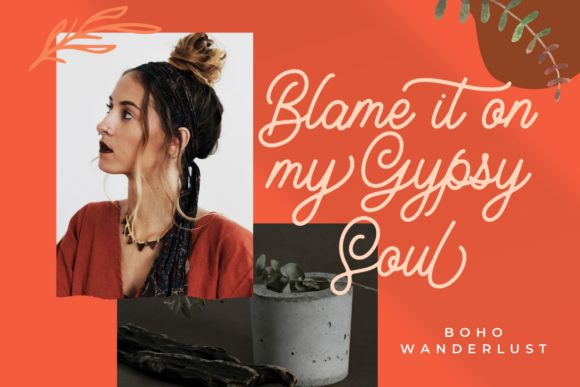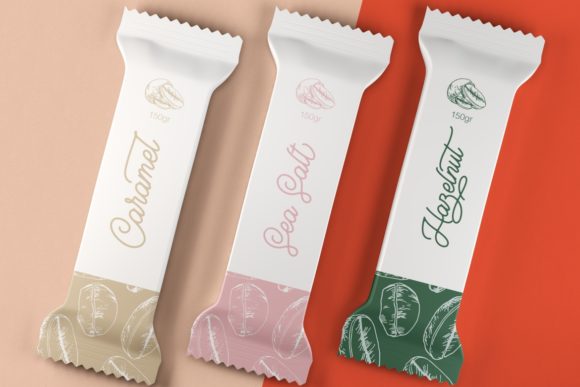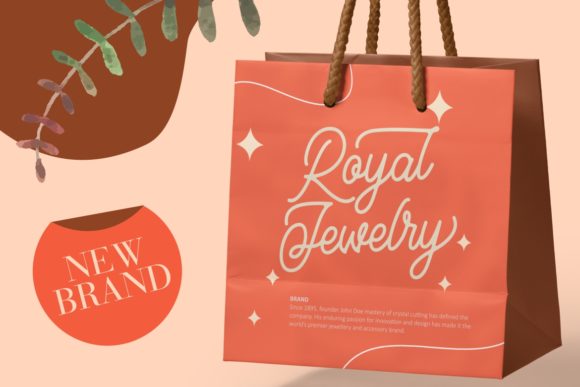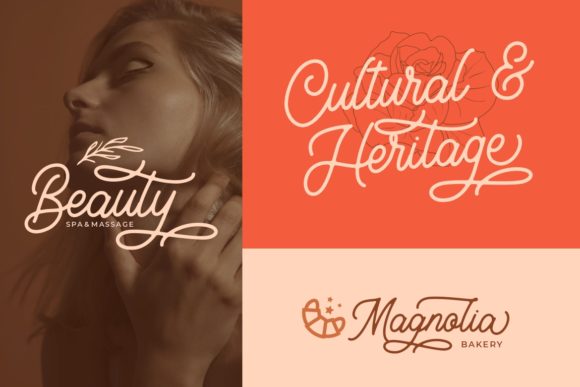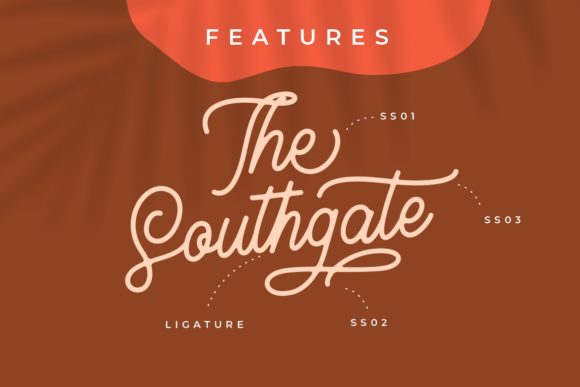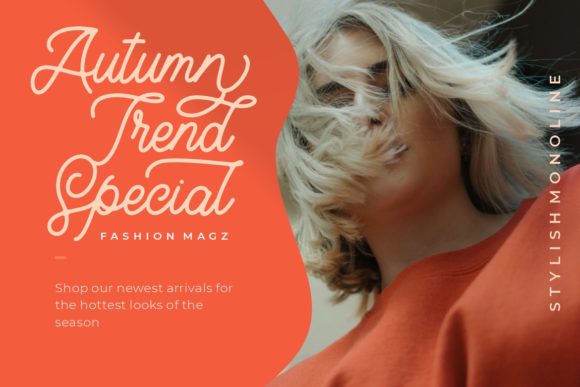
Introduction to Layttona Font
Have you ever been working on a creative project, and the perfect font has slipped right through your fingers? You envision a high-quality design, but the right typography seems to be nowhere to be found. That’s where the Layttona Font comes in – a modern, classy monoline font with swashes and ligatures that can elevate your design to the next level.
With its versatility and PUA encoding, Layttona Font is the ultimate design resource for any project. Whether you’re working on branding, logo design, or social media posts, this font is sure to make your work stand out. And the best part? It’s available for free download, so you can incorporate it into your next creative project without breaking the bank.
Key Features of Layttona Font
- High-quality, professional font perfect for creative projects and presentations.
- Unique, modern design with a distinctive flair, making it a great addition to any design resource.
- Includes a comprehensive character set, covering a wide range of languages and characters.
Honest Review: Layttona Font
I recently stumbled upon the Layttona Font, and I must say, it’s been a game-changer for my creative projects. As a designer, I’m always on the lookout for high-quality fonts that can elevate my designs, and Layttona Font certainly delivers.
One of the things that stands out about Layttona Font is its transparent background, which makes it perfect for use on both light and dark backgrounds. This flexibility is a huge plus, as it allows me to be more creative with my design layouts.
Here are some of the things that work well with Layttona Font:
- ✨ High-quality design: Layttona Font is incredibly well-designed, with a clear and crisp aesthetic that’s perfect for a variety of creative projects.
- ✨ Versatile: The font is highly versatile, making it suitable for use in a range of different contexts, from logos to body text.
- ⚠️ Limited character set: While Layttona Font is a great addition to any design arsenal, its character set is relatively limited, which may make it less suitable for certain types of projects.
- ⚠️ Not suitable for small text: Due to its large size, Layttona Font may not be the best choice for small text or body copy.
Overall, I’m really impressed with Layttona Font, and I think it’s a valuable addition to any designer’s toolkit. While it may have some limitations, its high-quality design and versatility make it a great resource for any creative project.
Tips for Getting the Most Out of Layttona Font
To get the most out of the Layttona Font, use it with a transparent background to create a modern and sleek design. You can also pair it with other high-quality design resources to create a unique and creative project.
The Layttona Font is commonly used in creative projects such as logos, business cards, and brochures. Its high-quality design and transparent background make it perfect for use in digital and print designs.